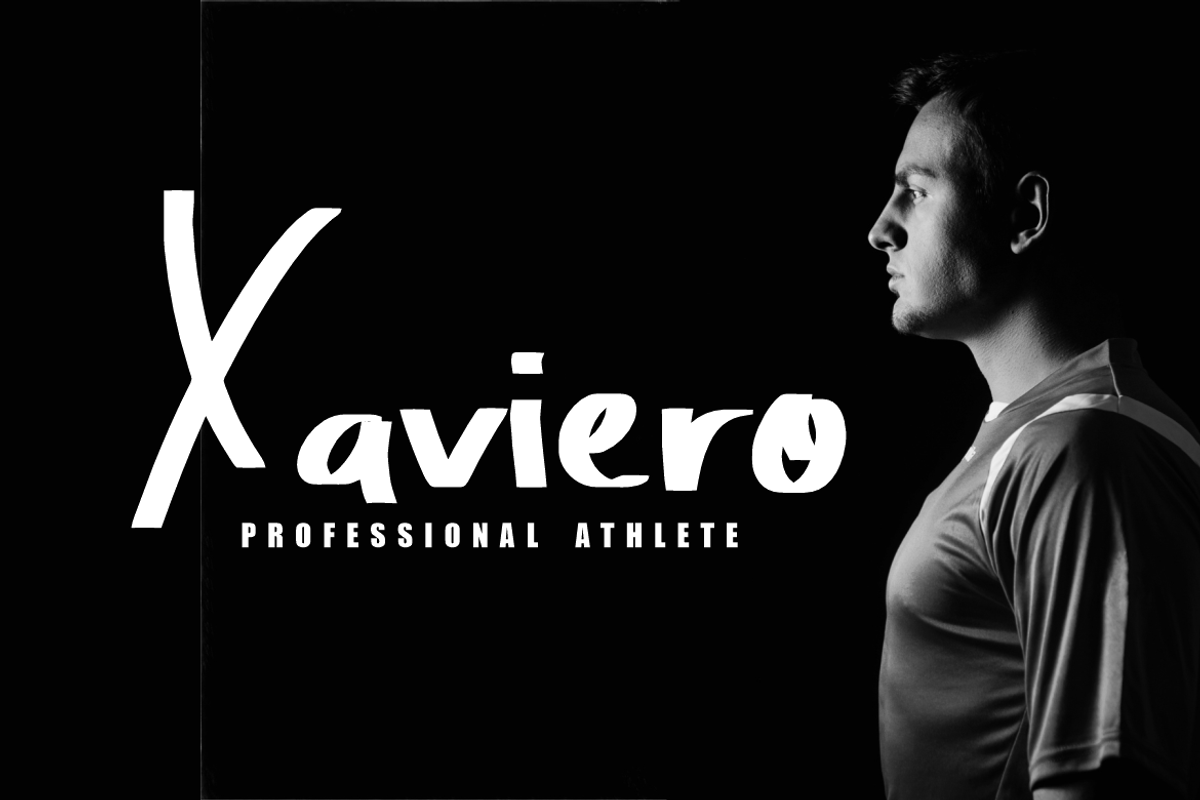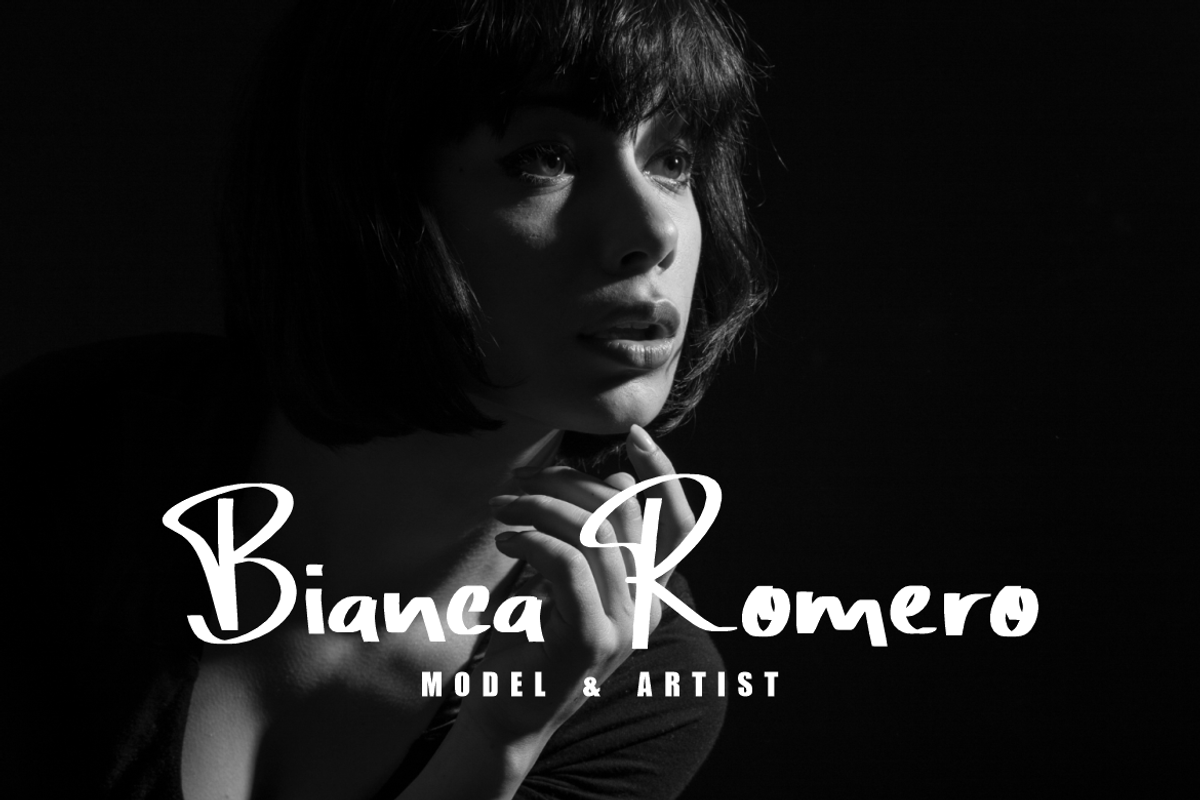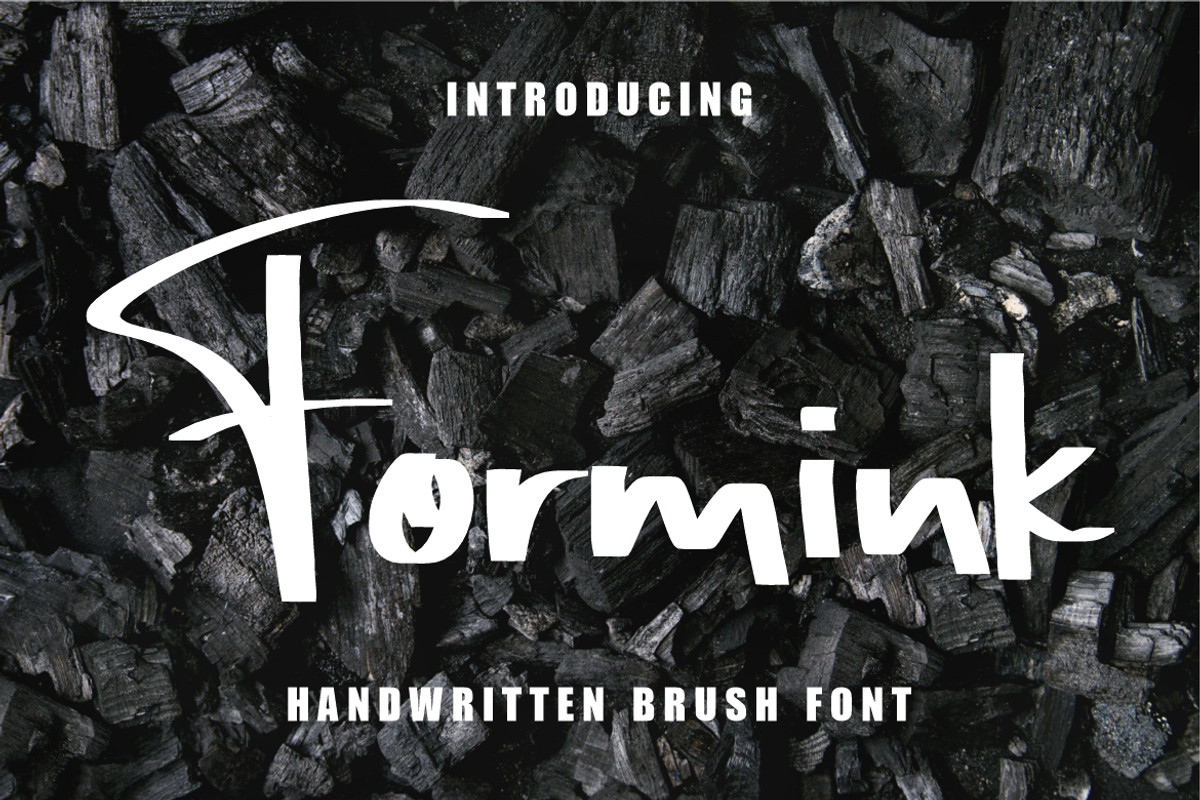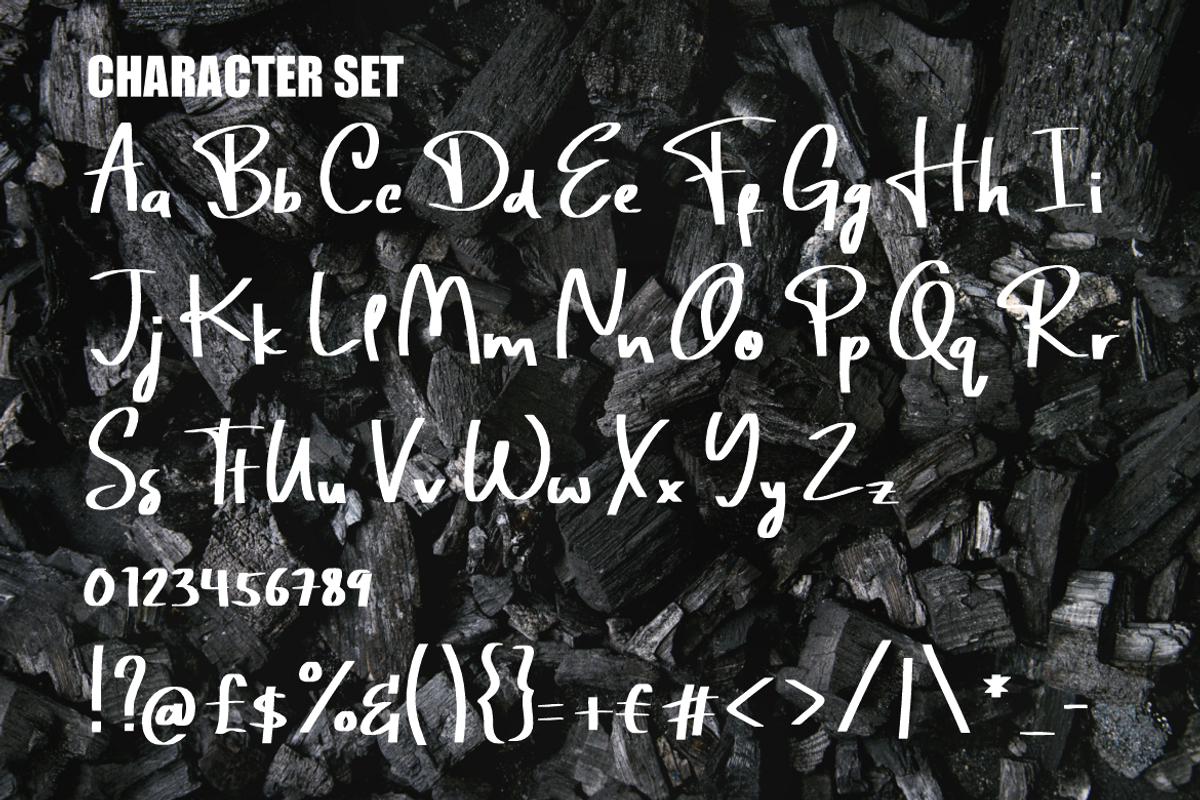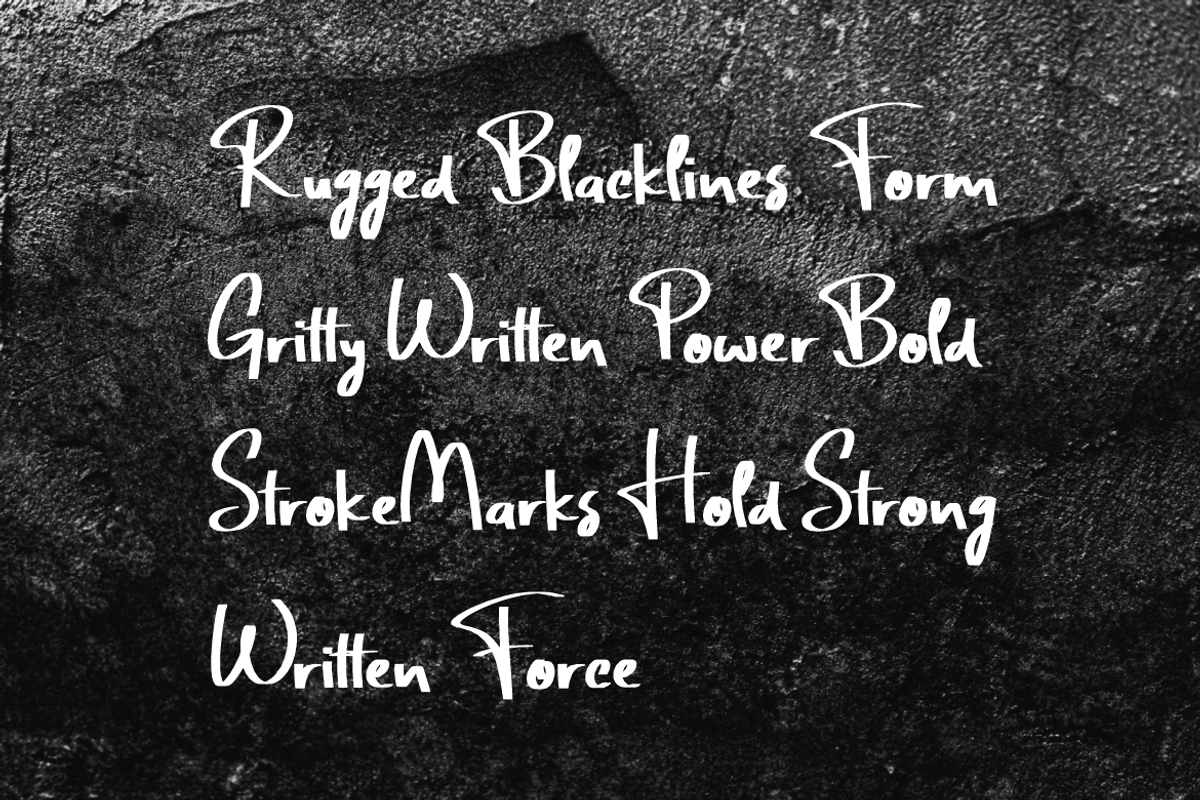
Formink Brush Font
Formink Brush Font is a dynamic handwritten typeface designed with raw brush energy and authentic lettering strokes. The characters feature tall, slightly uneven heights that emphasize natural movement, while their medium-to-thick weights ensure bold readability. The brush texture creates a handcrafted impression, blending organic imperfection with modern style. Each stroke flows with expressive rhythm, giving the font a personal yet professional character. The irregular edges enhance its handwritten feel, making every letter unique and visually captivating. This balance of power and elegance allows designers to use the font for impactful and stylish results.
Formink Brush Font works beautifully across a wide range of applications, from bold headlines to signature-style logos. It is a great choice for branding projects, advertising campaigns, product packaging, invitation cards, and editorial design. The handwritten brush aesthetic makes quotes and posters look authentic and engaging, while its strong shapes guarantee legibility in both print and digital media. Designers who want to inject personality, energy, and creativity into their work will find this font highly versatile. Whether used for business identities, artistic projects, or modern media, Formink Brush Font delivers bold expression with handwritten charm.